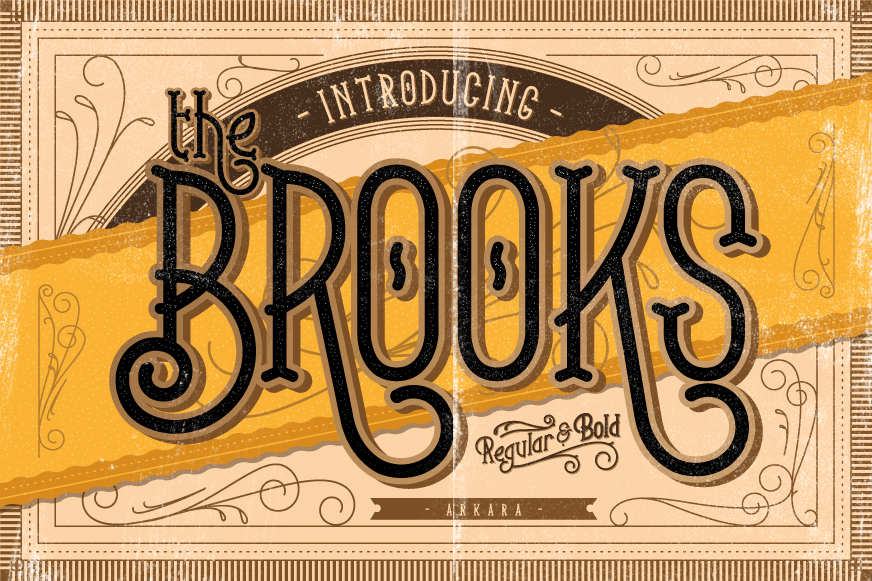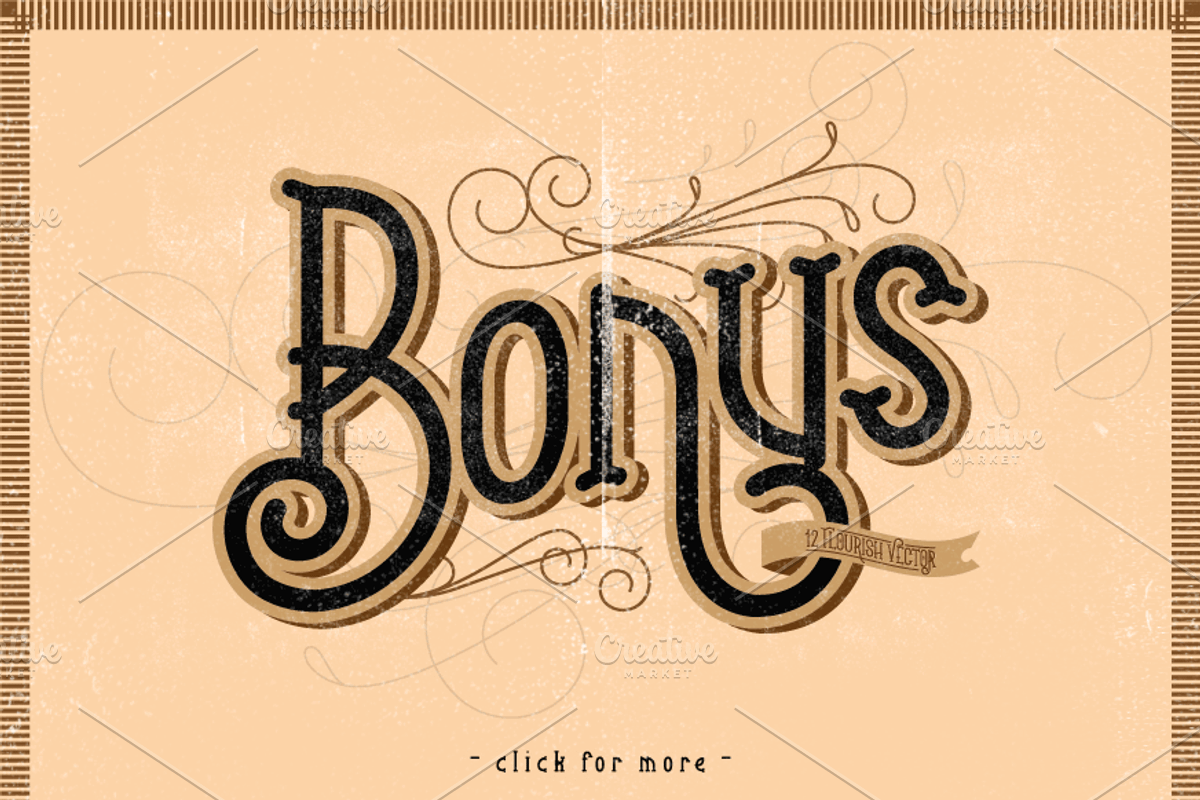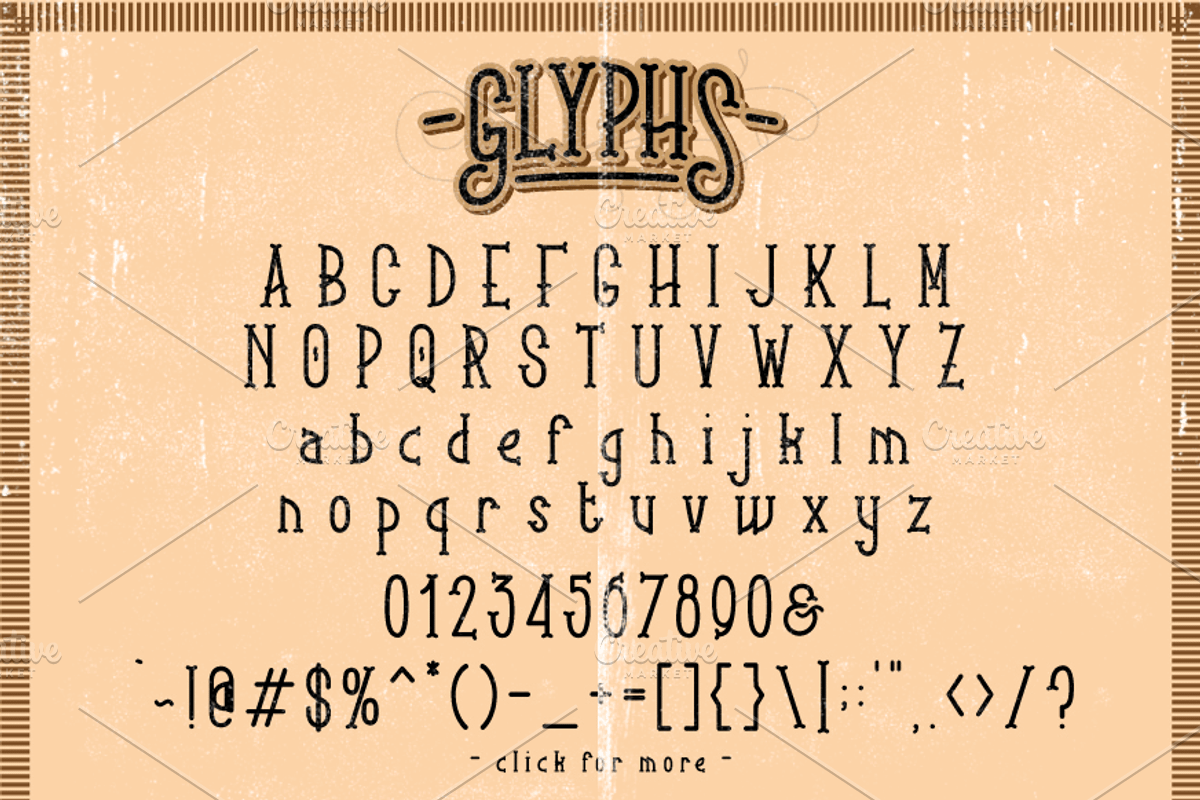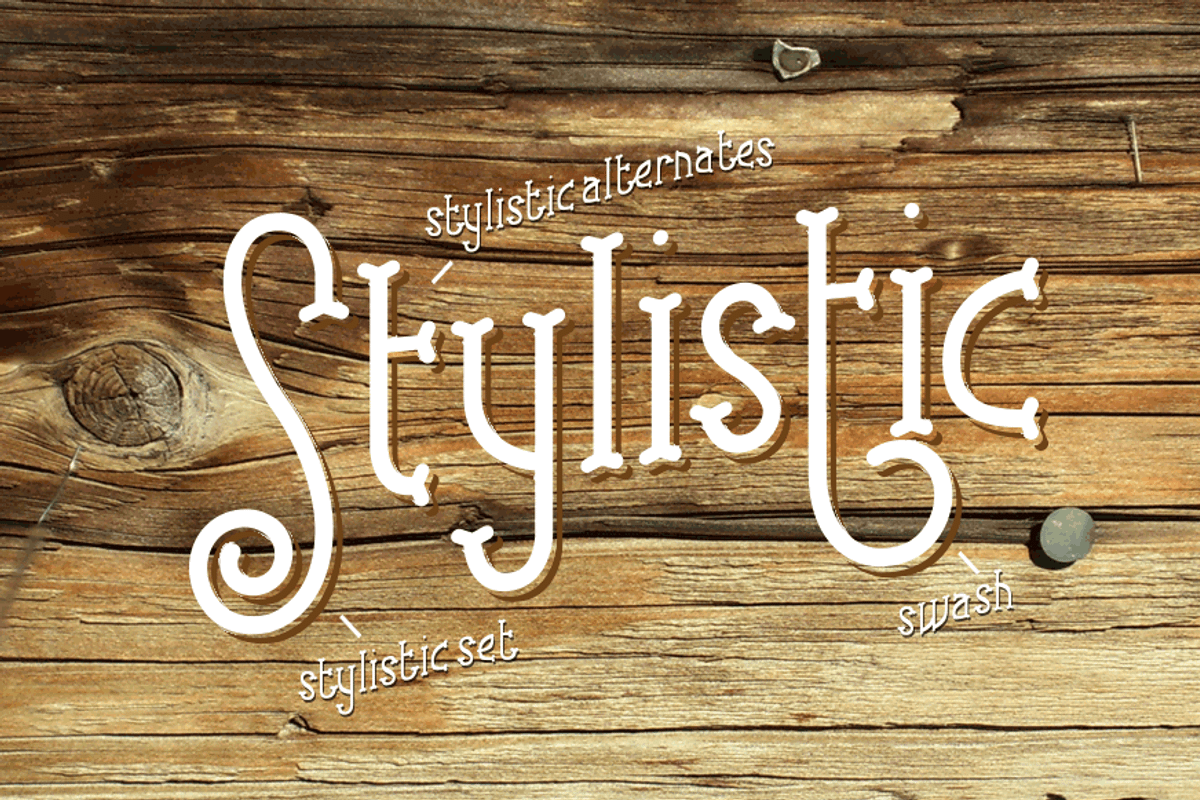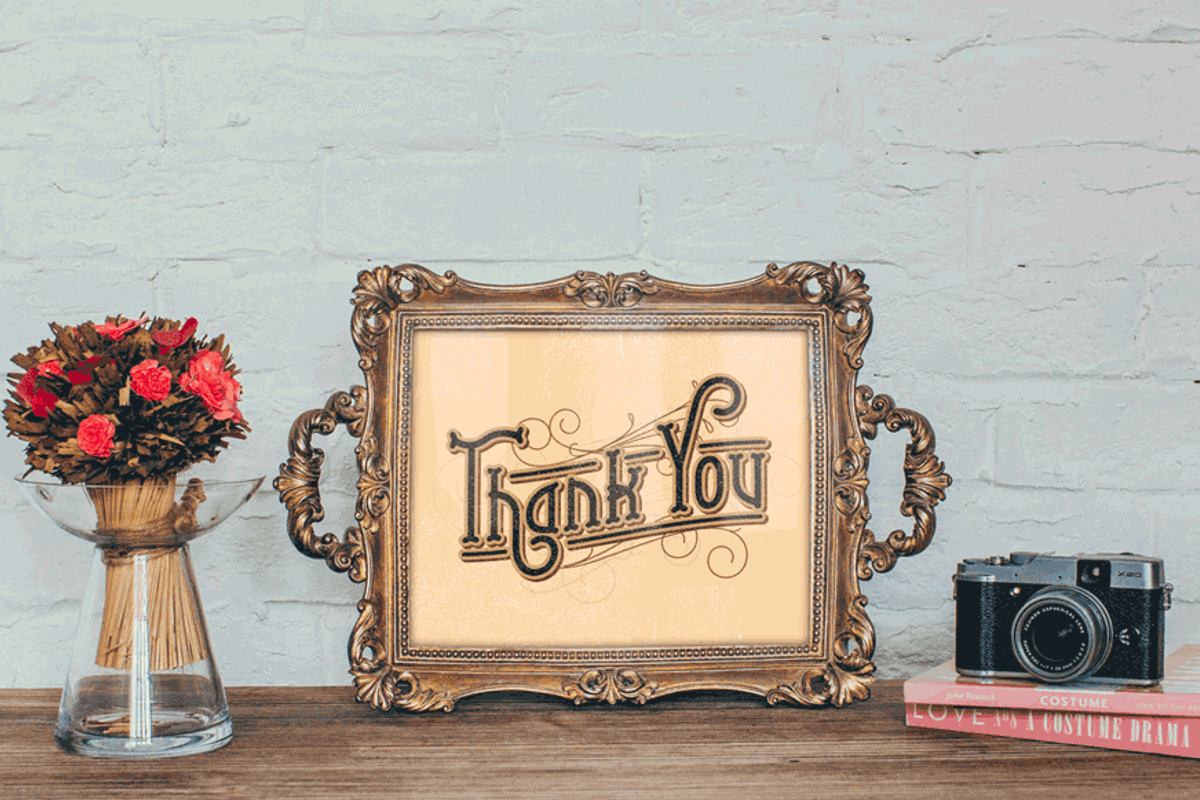
Brooks - Classic font + Bonus
Introducing classic display typeface, The Brooks. Inspiring from vintage poster and display sign. You can use this font for various purposes.such as letterhead, logo, poster title, badge,book cover, etc.
OpenType features with Stylistic Alternates, Contextual Alternate , Swash and Some characters from Styistic set,that allows you to mix and match pairs of letters to fit your design, and also the flourish vector ornament makes this font look stylist.
- Contextual Alternates
- Stylistic Set